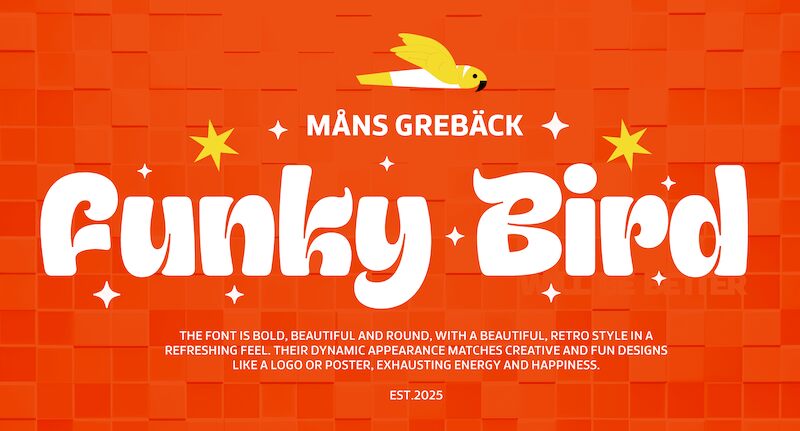
Funky Bird font
Funky Bird
Funky Bird is a groovy display font that oozes playful charm. With its bulbous curves and bouncy shapes, this typeface boasts a warm and inviting personality.
Ideal for creating a friendly bakery logo or the title of a children's book, Funky Bird adds a vibrant touch to your designs.